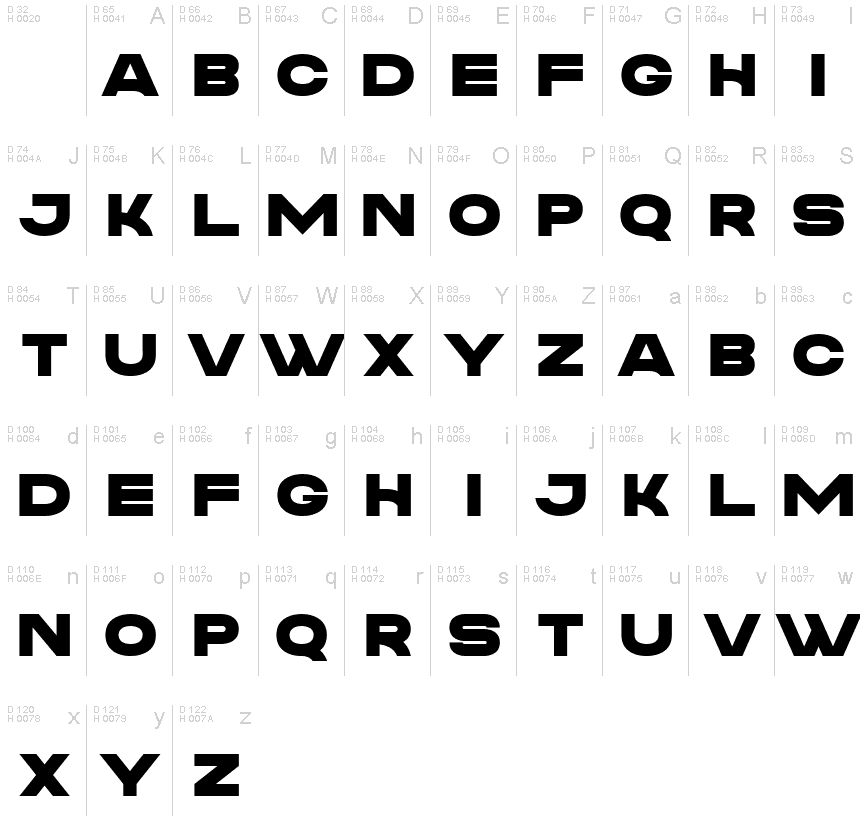
Manverse_Normal
Manverse Normal font is a bold sans serif font designed by Aluyeah Studio.
Hallo Aluyeaholic! Introducing Manverse, a bold manly typeface. Inspired by the things that make up the world of men. With a bold, strong, and firm vibe. Coming with 2 styles, all caps and multilingual support.